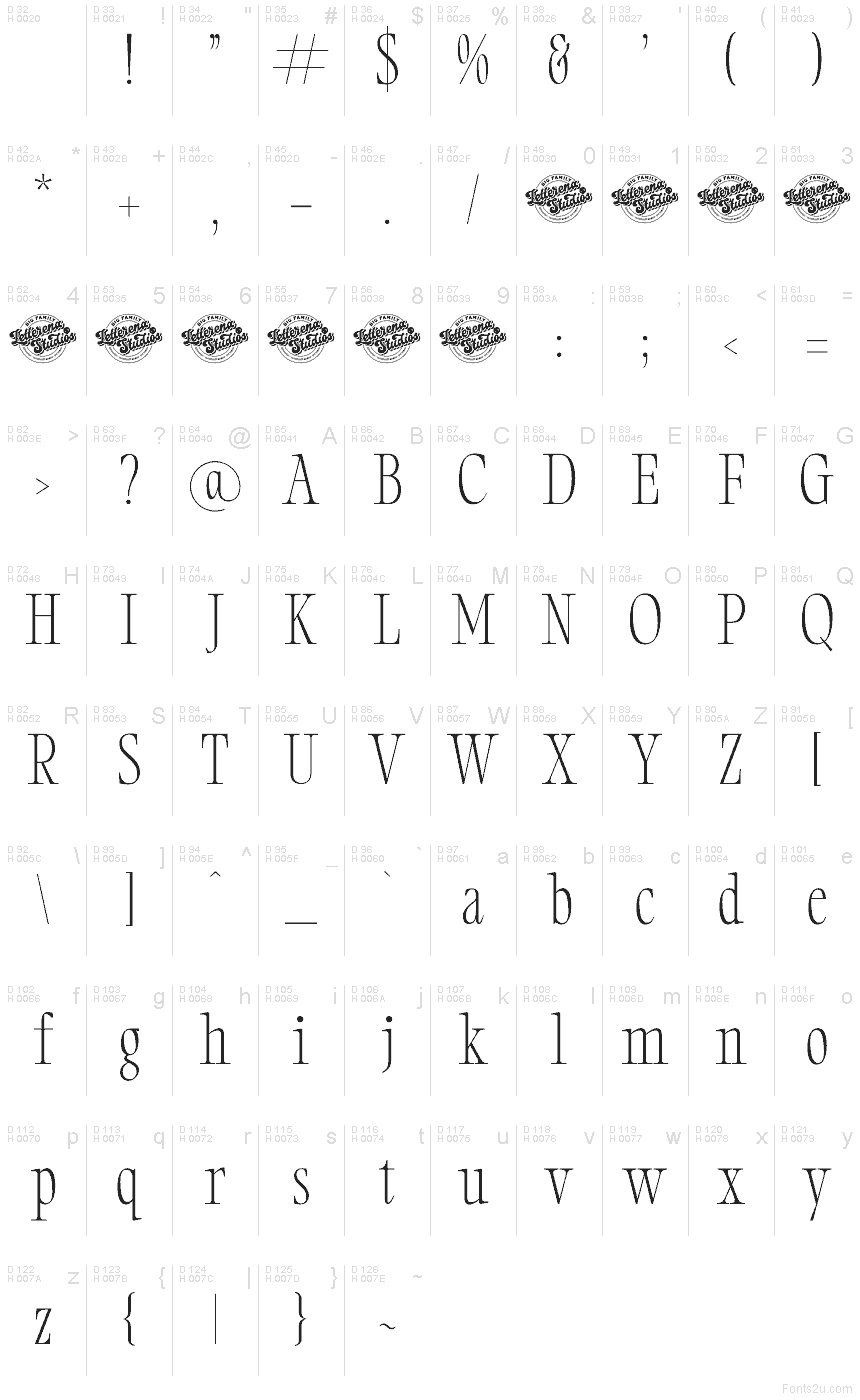
Clamofte DEMO VERSION
Clamofte font by Letterena Studios is a free elegant serif typeface with a distinctly slender, elongated look. Its razor-fine strokes and tall, poised letters give everything a runway-editorial feel, like ink stretched carefully across smooth paper. The rhythm of the spacing feels airy yet controlled, letting words breathe while still looking luxurious and intentional.
Using Clamofte, headlines and short phrases instantly take on a couture attitude—spot-on for fashion branding, magazine covers, luxe packaging, posters, social media graphics, and wedding stationery. This free font shines when used large, where its delicate lines stay crisp; pair it with a clean geometric sans for body text to keep layouts both refined and readable.